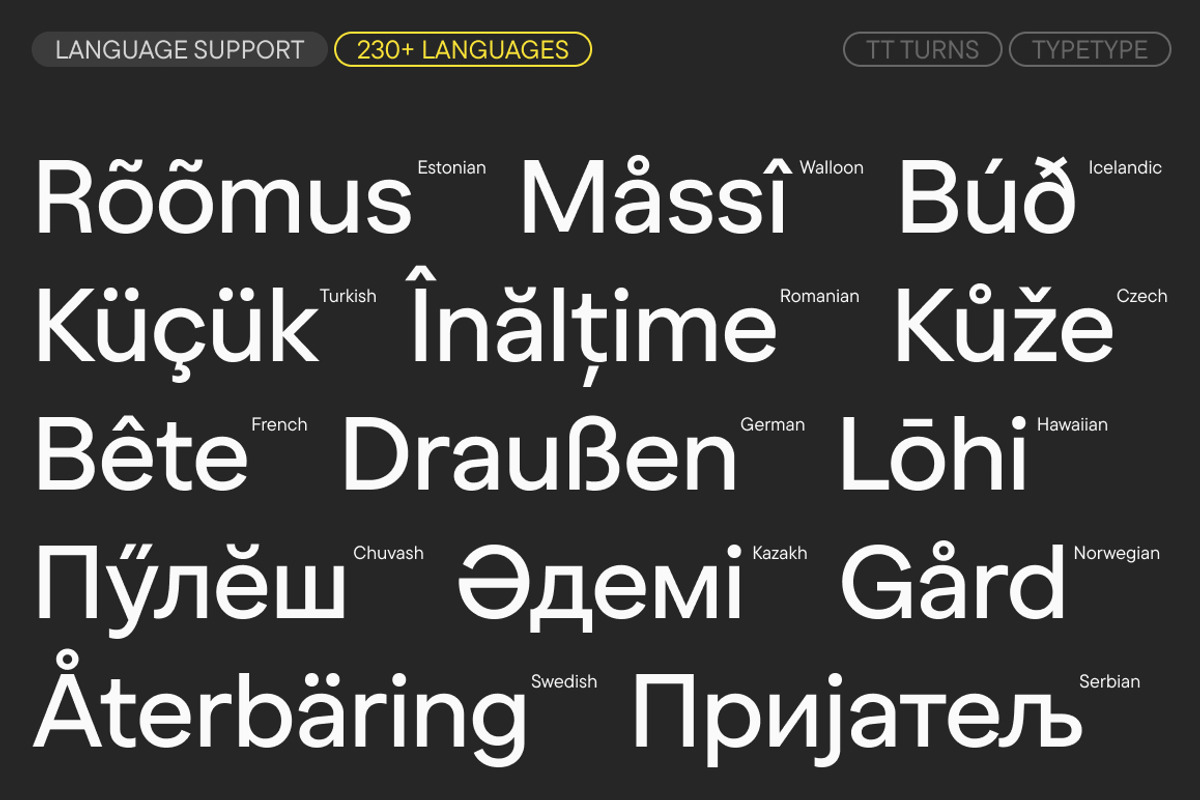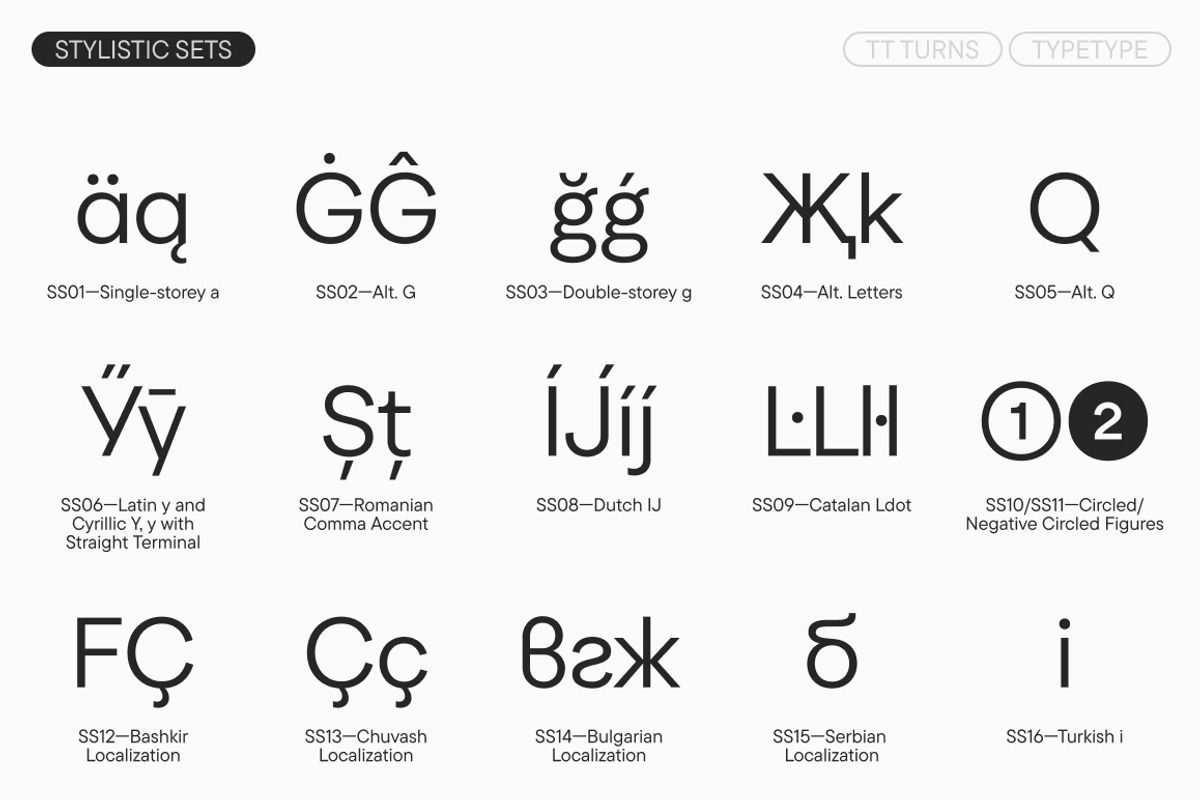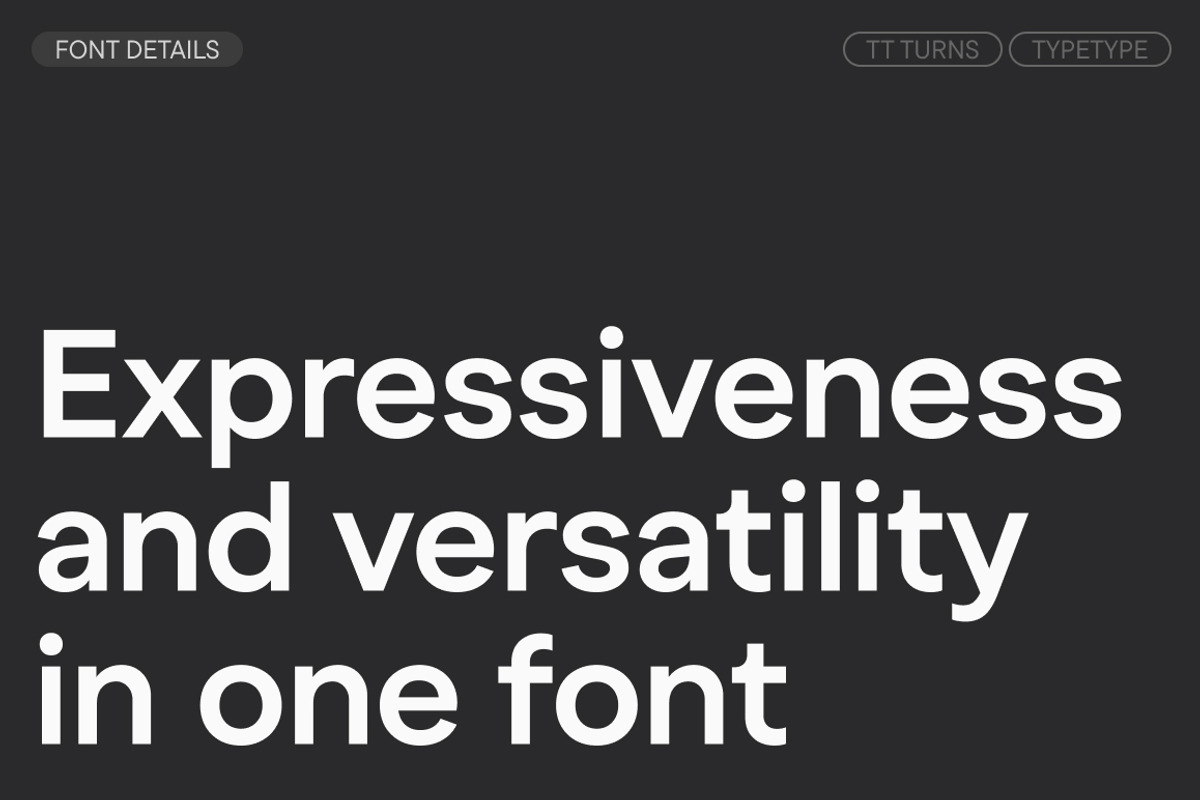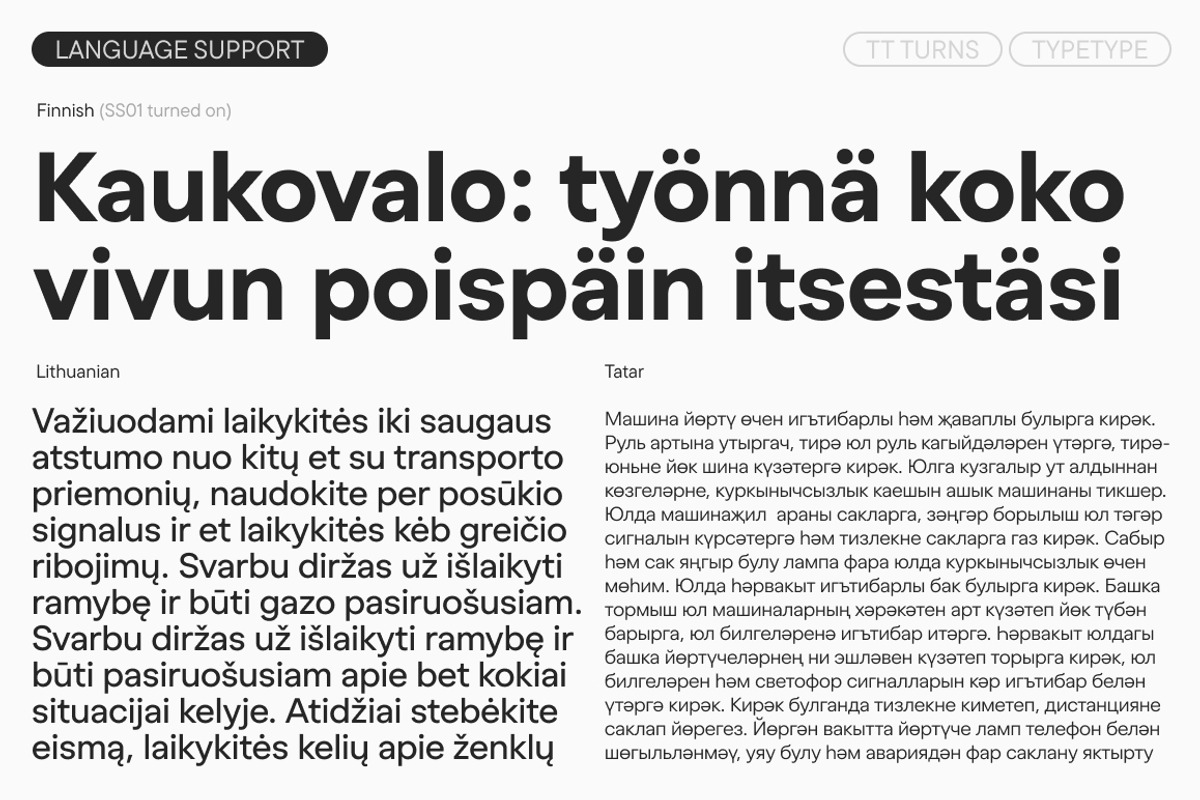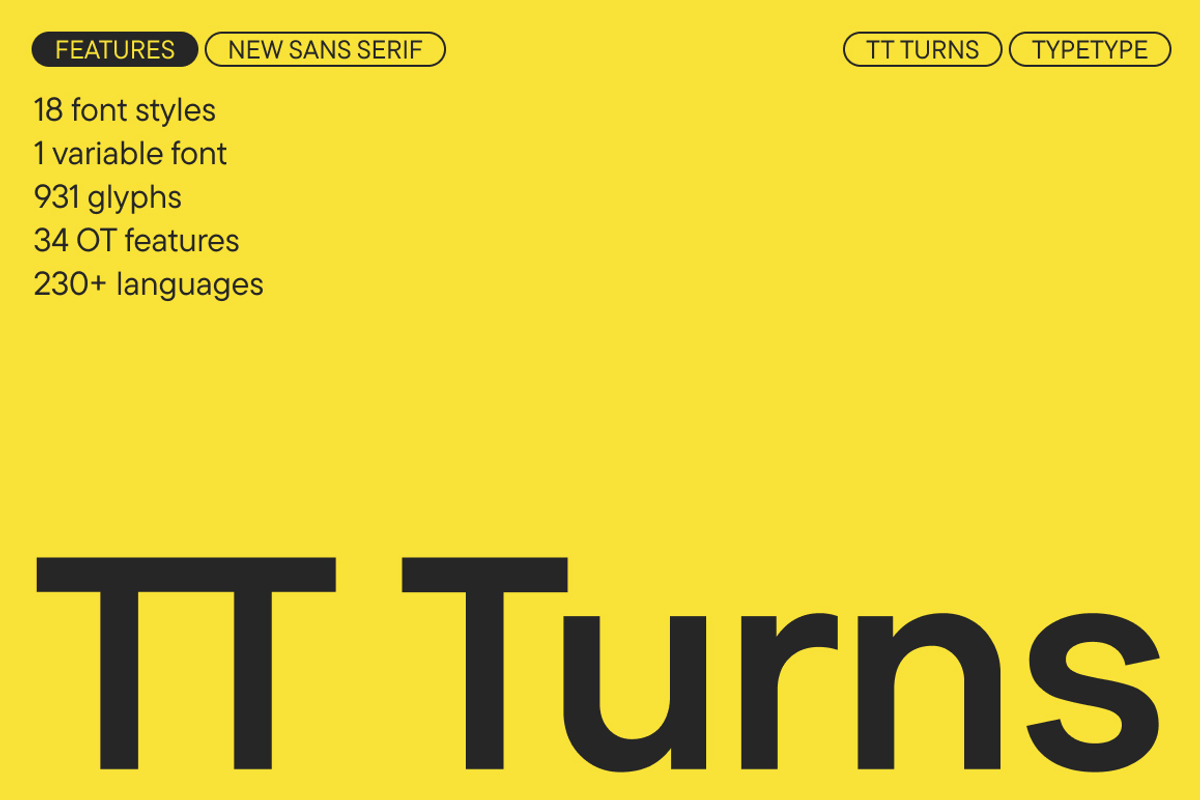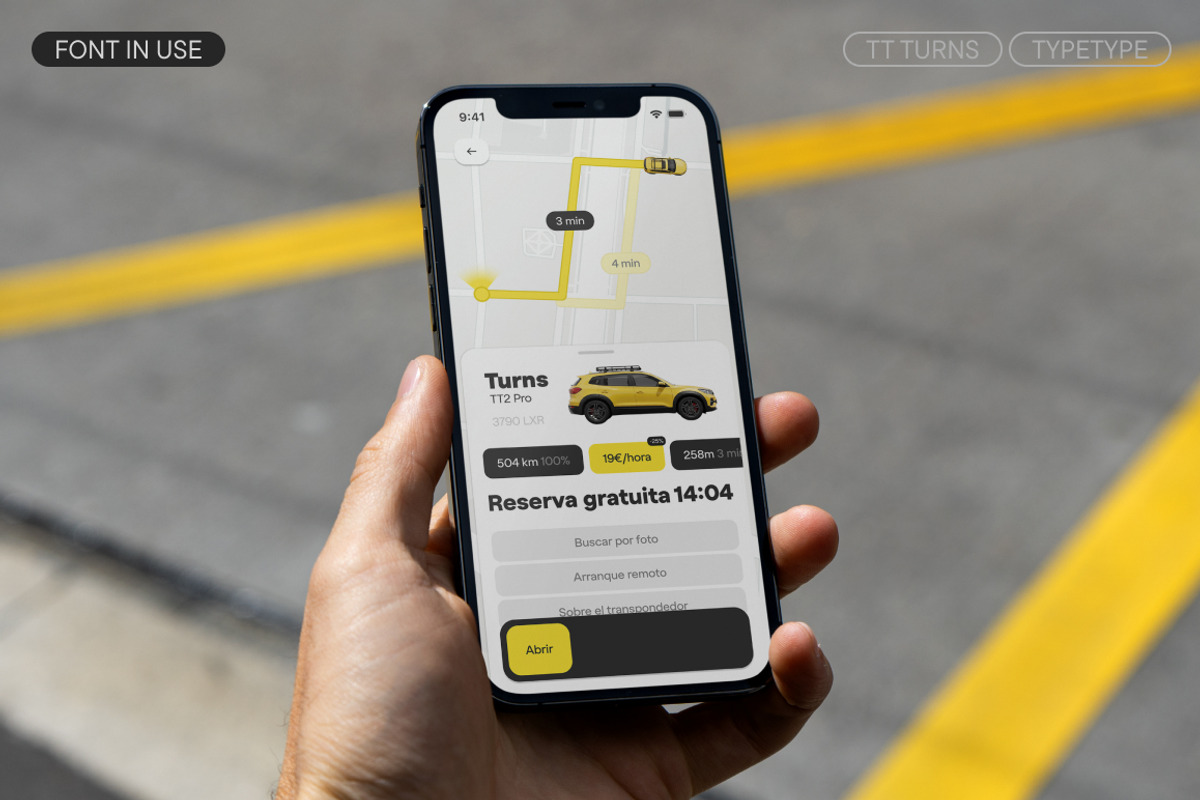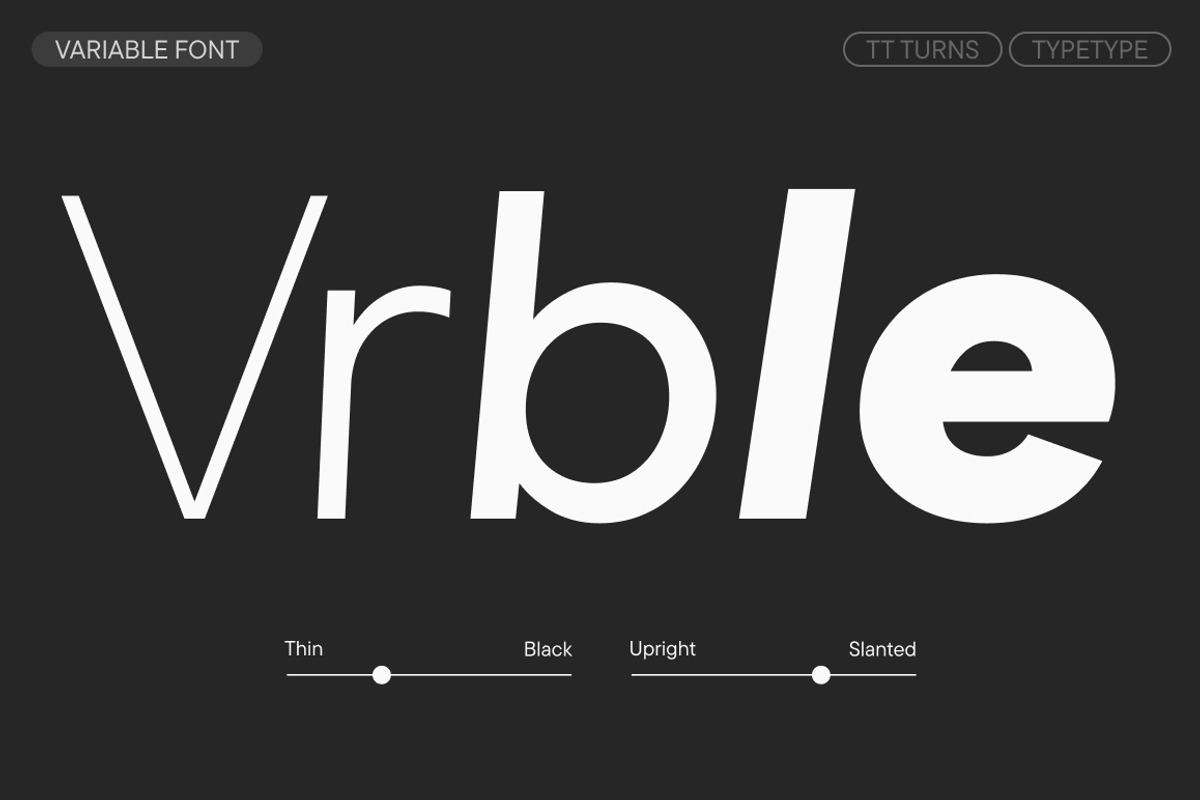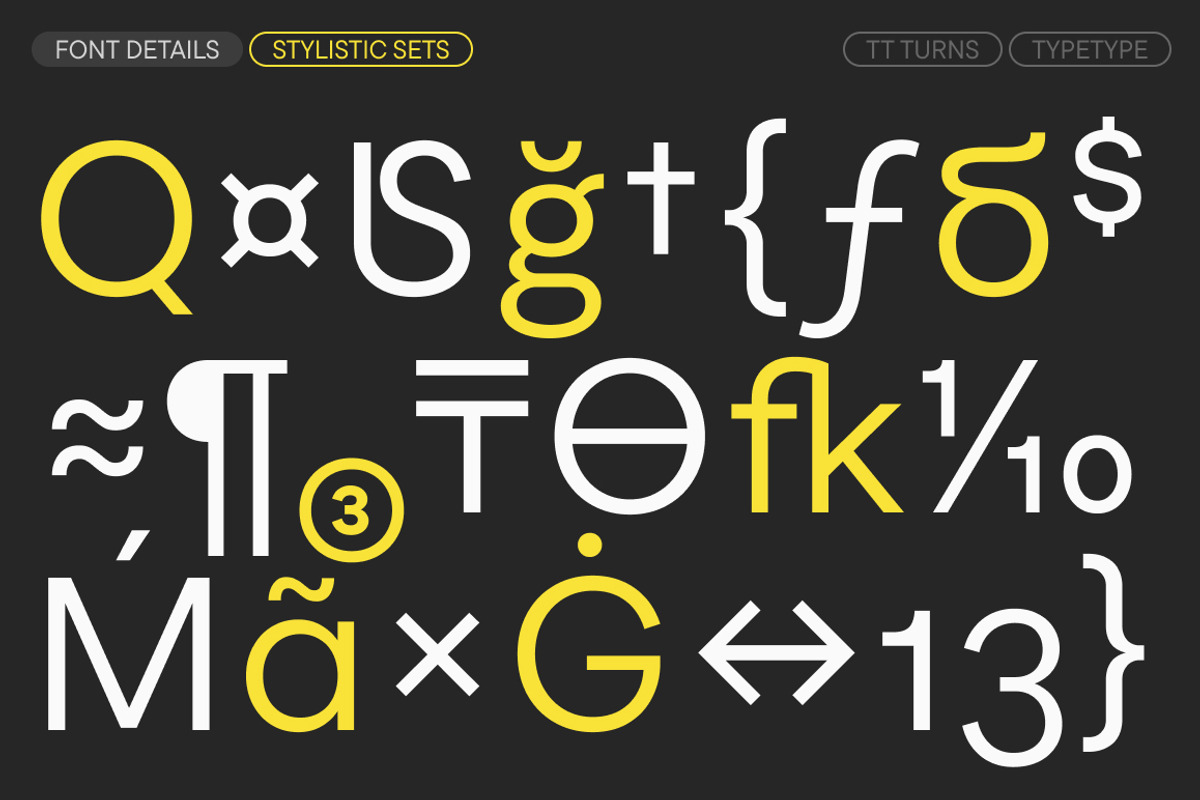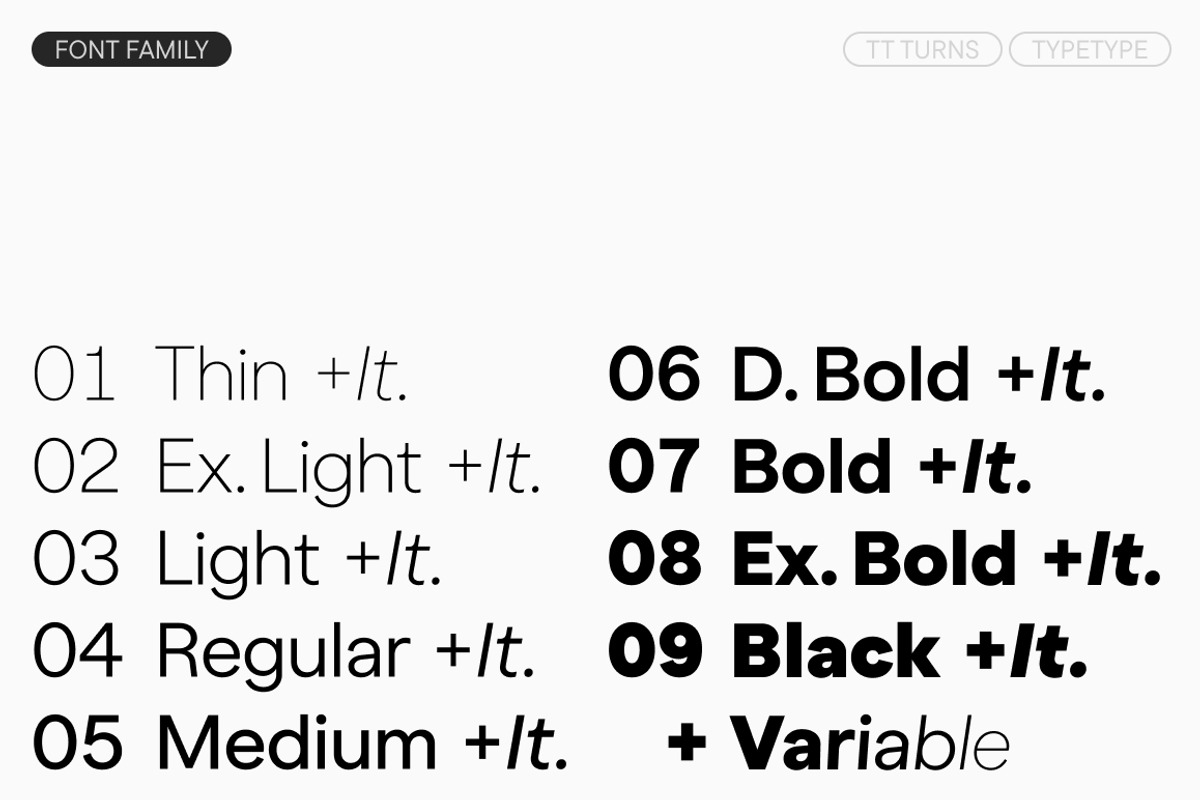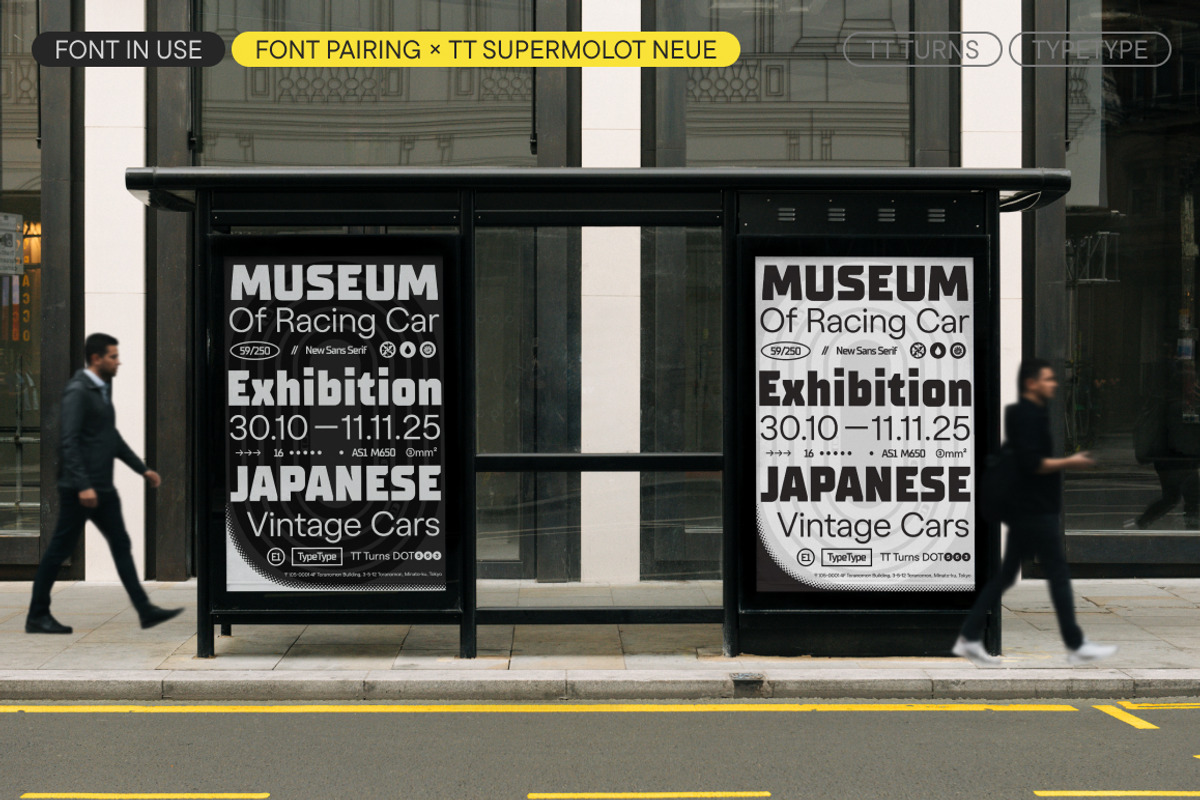
TT Turns
Introducing the new TT Turns — foundational and striking all at once! TT Turns is a geometric sans serif with distinctive rounded glyphs and expressive overhanging elements. This versatile font has a concise appearance and is highly readable at small sizes, while at large point sizes, it becomes a display font and reveals its character to the fullest. It's energetic, strong, and dynamic—a quality that is especially evident in the italic font styles. In 'Kk' and 'Жж', the diagonals meet the stem at a steep angle, creating a striking triangle of white space. This adds a sharp quality to the design. Other characteristic details include the sharp terminals on 'Ss', 'Cc', 'a', 'Ээ', and 'Зз', an expressive leg on the 'R', and pronounced protruding strokes on the left parts of 'Лл' and 'Дд'. You can add even more display character to the font using its striking stylistic sets. For instance, the 'a' can be changed from a double-storey to a single-storey form, the 'g' from a single-storey to a double-storey, the shape of the 'G' can be made rounded, the glyphs for 'Жж' and 'Kk' can be changed, and the shape of the 'Q's tail can be transformed. And if, on the contrary, you wish to calm the typesetting, a set with more restrained tail forms for the Cyrillic 'Уу' and Latin 'y' is available. The font also includes ligatures, numerous OpenType features that significantly expand its capabilities, and a variable style that changes along the weight and slant axes. TT Turns is suitable for a multitude of different tasks: from use in running text, on the web, and in applications to branding and packaging design. It can be used with equal effectiveness in virtually any field. TT Turns includes: - 19 styles: 9 uprights, 9 italics, and 1 variable font - 931 glyphs per style - 34 OpenType features - Support for over 230 languages Please note! If you need TTF versions of the fonts or variable font, just email us at --- Especially for TT Turns font family we've prepared a type specimen which can be downloaded here— --- TT Turns supports 230+ languages: English+, Albanian+, Basque+, Catalan+, Croatian, Czech+, Danish+, Dutch+, Estonian+, Finnish, French+, German+, Hungarian+, Icelandic+, Irish, Italian+, Latvian, Lithuanian+, Luxembourgish+, Maltese, Moldavian (lat), Montenegrin (lat), Norwegian+, Polish+, Portuguese+, Romanian+, Serbian (lat)+, Slovak+, Slovenian+, Spanish+, Swedish+, Swiss German+, Valencian+, Azerbaijani+, Kazakh (lat), Turkish+, Uzbek (lat), Acehnese, Banjar, Betawi, Bislama+, Boholano+, Cebuano+, Chamorro+, Fijian, Filipino+, Hiri Motu, Ilocano, Indonesian+, Javanese, Khasi, Malay+, Marshallese, Minangkabau+, Nauruan, Nias, Palauan, Rohingya, Salar, Samoan, Sasak, Sundanese, Tagalog+, Tahitian, Tetum, Tok Pisin, Tongan+, Uyghur, Afar, Asu, Aymara, Bemba, Bena, Chichewa, Chiga, Embu, Gikuyu, Gusii, Jola-Fonyi, Kabuverdianu, Kalenjin, Kamba, Kikuyu, Kinyarwanda, Kirundi, Kongo, Luba-Kasai, Luganda+, Luo, Luyia, Machame, Makhuwa-Meetto, Makonde, Malagasy, Mauritian Creole, Meru, Morisyen, Ndebele, Nyankole, Oromo, Rombo, Rundi, Rwa, Samburu, Sango, Sangu, Sena, Seychellois Creole, Shambala, Shona, Soga, Somali, Sotho+, Swahili, Swazi, Taita, Teso, Tsonga, Tswana+, Vunjo, Wolof, Xhosa, Zulu+, Ganda, Maori, Alsatian, Aragonese, Arumanian+, Asturian+, Belarusian (lat), Bosnian (lat), Breton+, Bulgarian (lat), Colognian+, Cornish, Corsican+, Esperanto, Faroese+, Frisian, Friulian+, Gaelic, Gagauz (lat), Galician+, Interlingua, Judaeo-Spanish, Karaim (lat), Kashubian, Ladin, Leonese, Manx, Occitan, Rheto-Romance, Romansh+, Scots, Silesian, Sorbian, Vastese, Volapük, Võro, Walloon, Walser+, Welsh+, Karakalpak (lat), Kurdish (lat)+, Talysh (lat), Tsakhur (Azerbaijan), Turkmen (lat), Zaza, Aleut (lat), Cree, Haitian Creole, Hawaiian, Innu-aimun, Lakota, Karachay-Balkar (lat), Karelian+, Livvi-Karelian+, Ludic+, Tatar+, Vepsian+, Guarani, Nahuatl, Quechua+, Russian+, Belarusian (cyr), Bosnian (cyr), Bulgarian (cyr), Macedonian+, Serbian (cyr)+, Ukrainian, Kazakh (cyr), Kirghiz+, Tadzhik, Turkmen (cyr), Uzbek (cyr)+, Lezgian, Abazin, Agul, Archi, Avar, Dargwa, Ingush+, Kabardian, Kabardino-Cherkess, Karachay-Balkar (cyr)+, Khvarshi, Kumyk+, Lak, Nogai, Rutul, Tabasaran, Tsakhur, Buryat, Siberian Tatar, Tofalar, Touva, Bashkir+, Chechen (cyr)+, Chuvash+, Erzya, Kryashen Tatar, Mordvin-moksha, Tatar Volgaic+, Uighur, Rusyn, Montenegrin (cyr), Romani (cyr), Dungan, Karakalpak (cyr), Shughni, Mongolian, Adyghe, Kalmyk --- Full list of OpenType features: aalt, ccmp, ordn, locl, case, frac, sinf, subs, sups, numr, dnom, tnum, onum, lnum, pnum, dlig, liga, calt, SS01 (Single-storey a), SS02 (Alternative G), SS03 (Double-storey g), SS04 (Alternative Letters), SS05 (Alternative Q), SS06 (Latin y and Cyrillic Y, y with straight terminal), SS07 (Romanian Comma Accent), SS08 (Dutch IJ), SS09 (Catalan Ldot), SS10 (Circled Figures), SS11 (Negative Circled Figures), SS12 (Bashkir localization), SS13 (Chuvash localization), SS14 (Bulgarian localization), SS15 (Serbian localization), SS16 (Turkish i) --- Haven't you found what you've been looking for? No problem! We have fonts that suit any taste and are fit for any task—all you have to do is choose! Sans Serif: - TT Octosquares Normal - TT Norms Std Condensed - TT Norms Pro Basic - TT Norms Pro Mono - TT Runs - TT Interphases Pro Basic - TT Interphases Pro Mono - TT Frantz - TT Hoves Pro - TT Supermolot - TT Supermolot Neue - TT Firs Neue - TT Fellows - TT Autonomous - TT Rounds Neue - TT Severs - TT Commons Pro Basic - TT Commons Pro Mono - TT Wellingtons - TT Travels Next - TT Mussels - TT Hazelnuts - TT Corals - TT Prosto Sans - TT Chocolates - TT Smalls - TT Lakes Neue Normal - TT Squares - TT Octas - TT Bricks - TT Bluescreens - TT Drugs Serif: - TT Livret - TT Marxiana - TT Rationalist - TT Ramillas - TT Espina - TT Ricordi - TT Ricordi Marmo - TT Ricordi Greto - TT Ricordi Allegria - TT Globs - TT Geekette - TT Alientz - TT Tsars - TT Barrels - TT Phobos - TT Tricks - TT Jenevers - TT Slabs - TT Moons - TT Bells Decorative: - TT Espina - TT Cometus - TT Ricordi - TT Globs - TT Marxiana - TT Trailers - TT Nooks - TT Backwards - TT Polls - TT Knickerbockers - TT Berlinerins - TT Milks - TT Smalls Script: - TT Lovelies Script